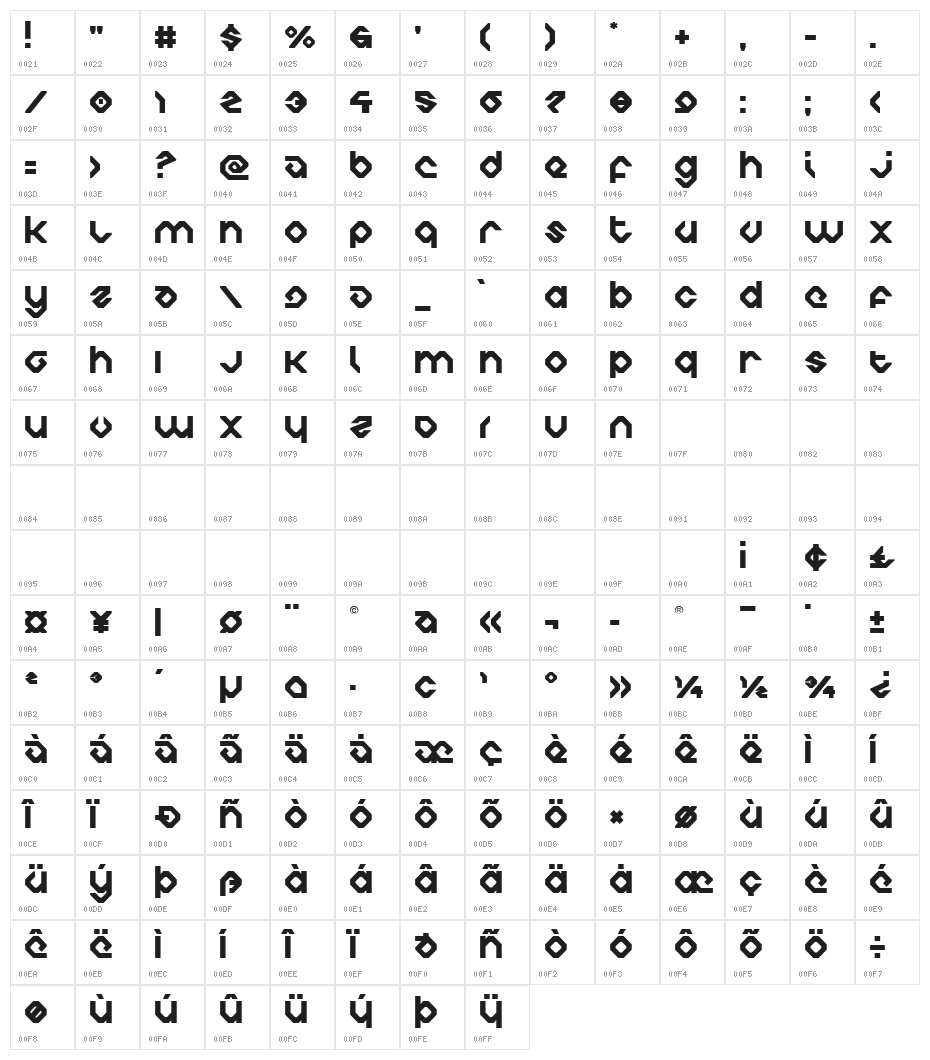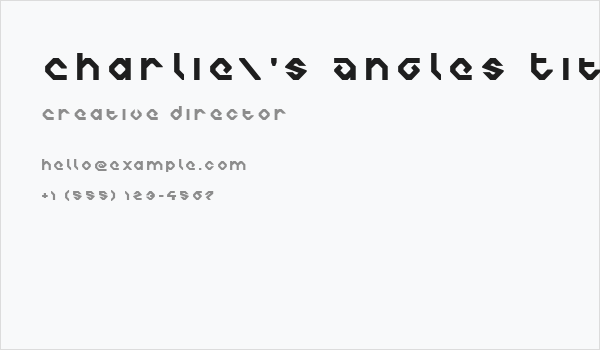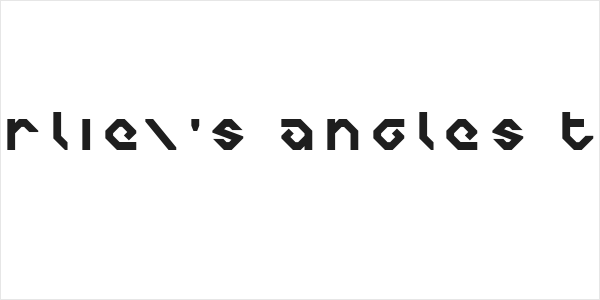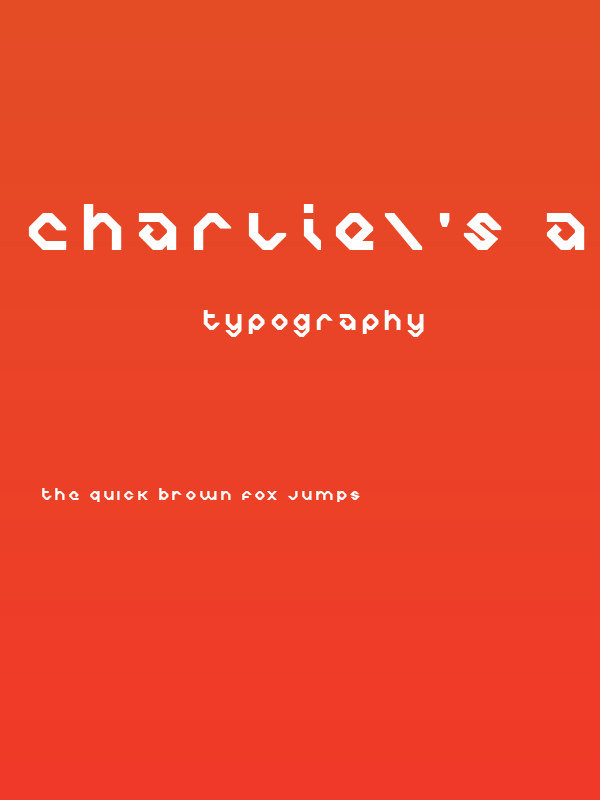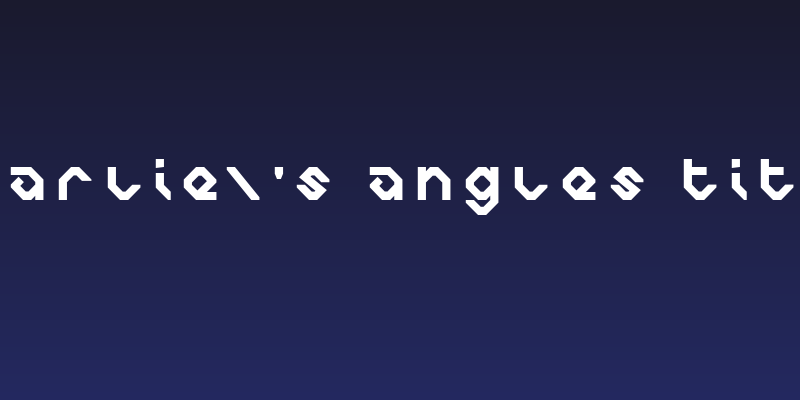
Charlie's Angles Title Font
Charlie's Angles Title Description
This font features a bold and angular design, characterized by its geometric and sharp-edged letterforms. Each character is crafted with a distinct angularity, giving it a futuristic and edgy appearance. The uppercase and lowercase letters maintain a consistent style, with uniform thickness and sharp corners. The numerals and special characters follow the same design principles, ensuring a cohesive look across all glyphs. The font's unique style makes it stand out, with a modern and slightly aggressive aesthetic that captures attention.